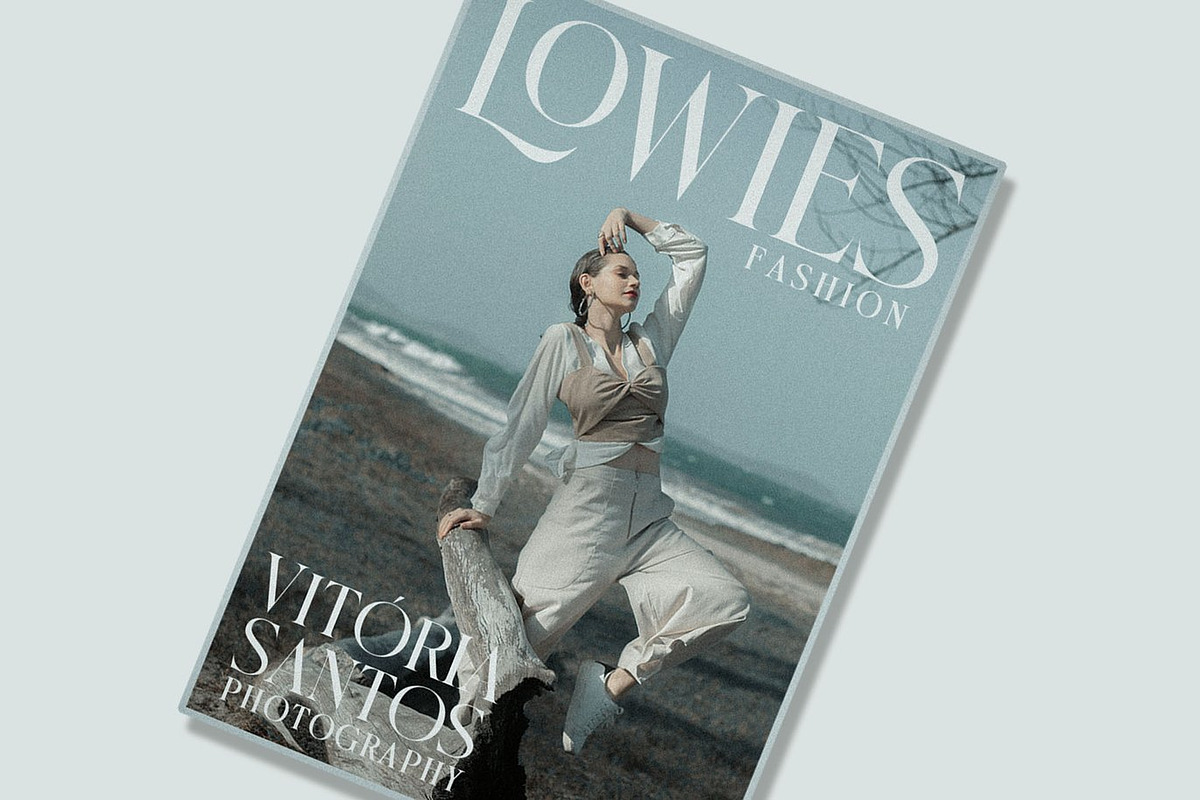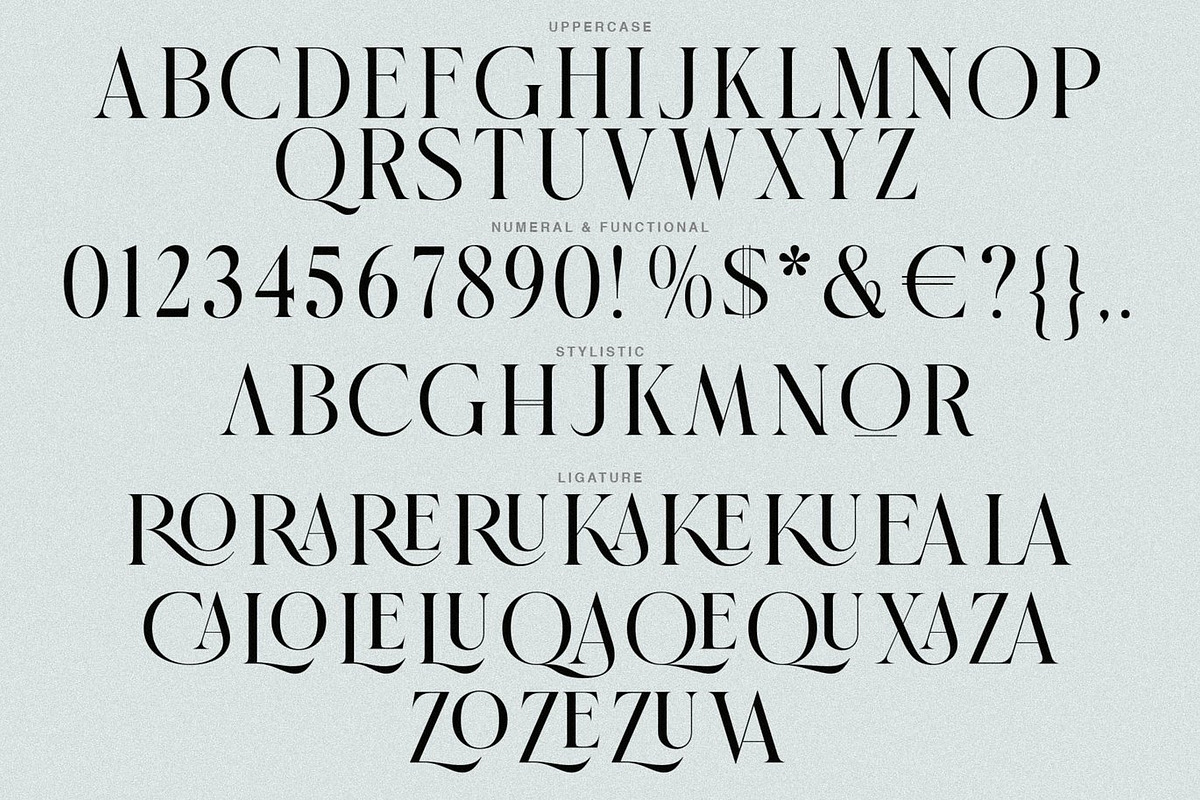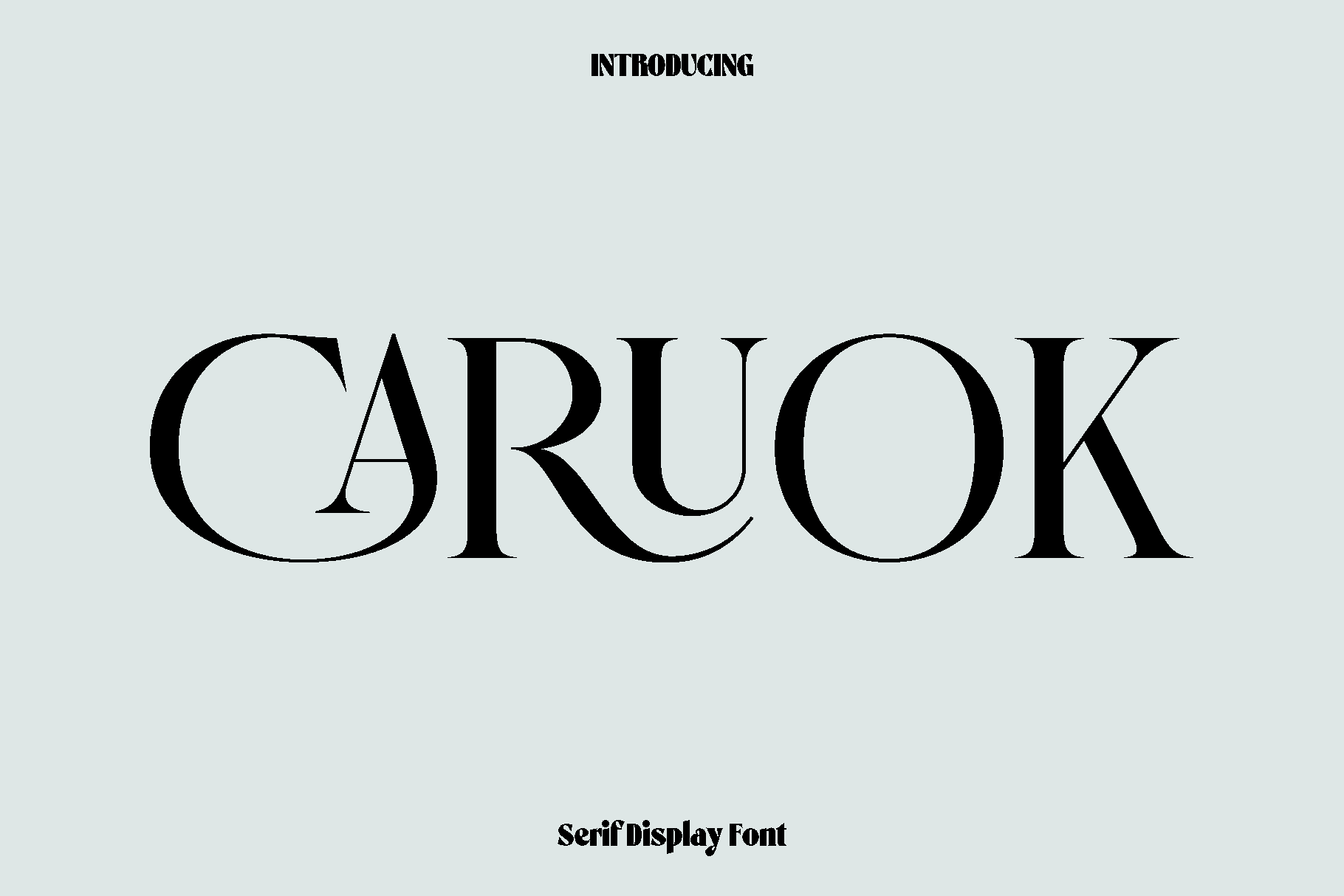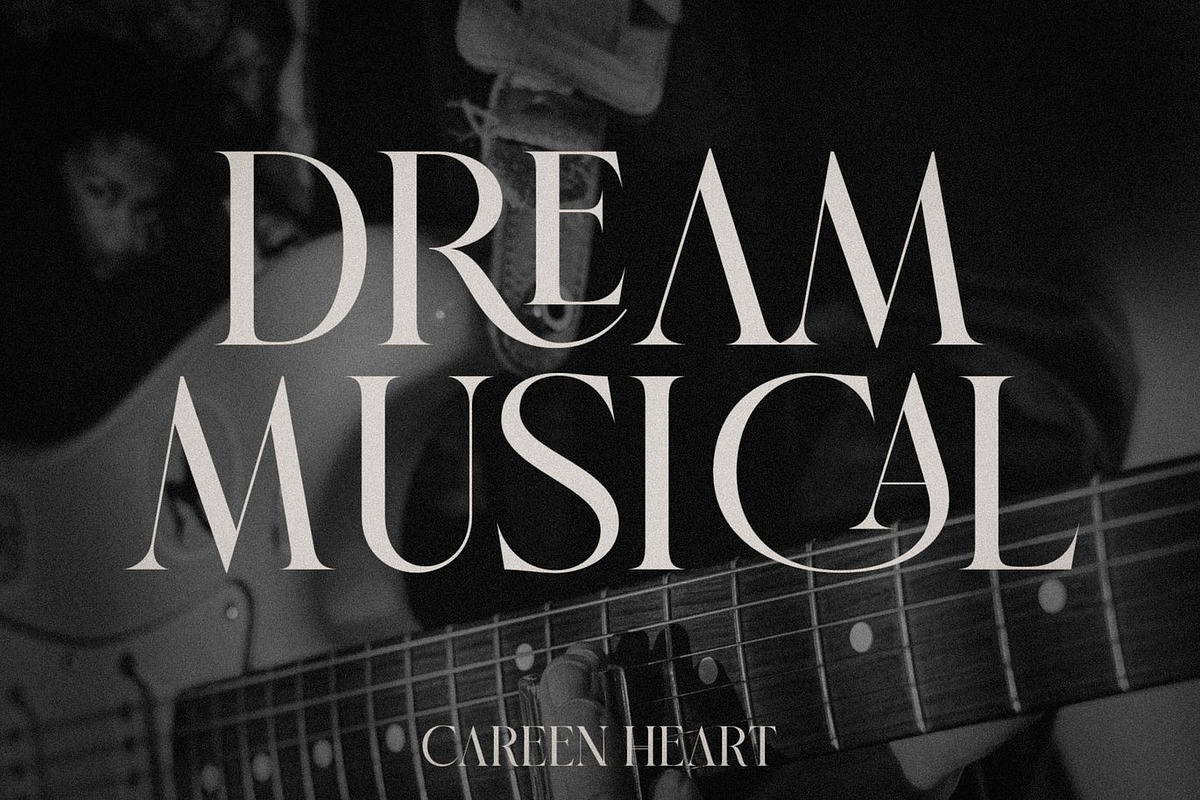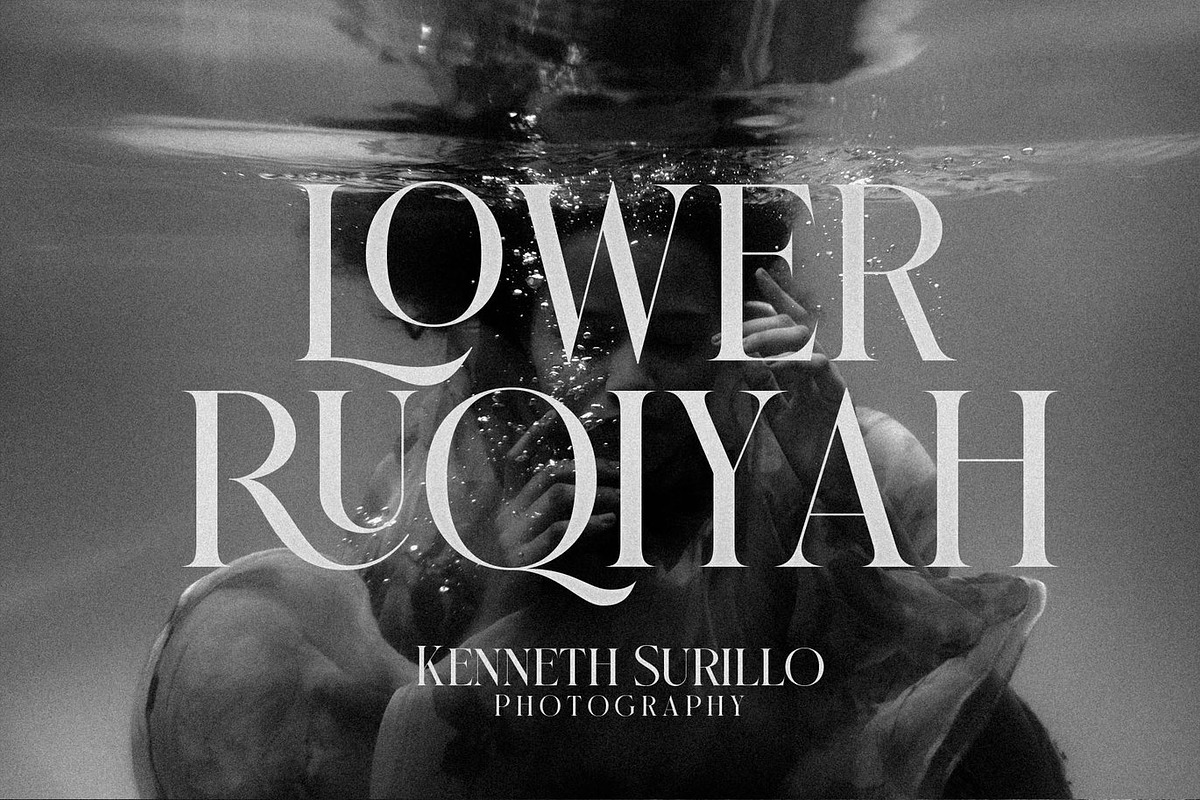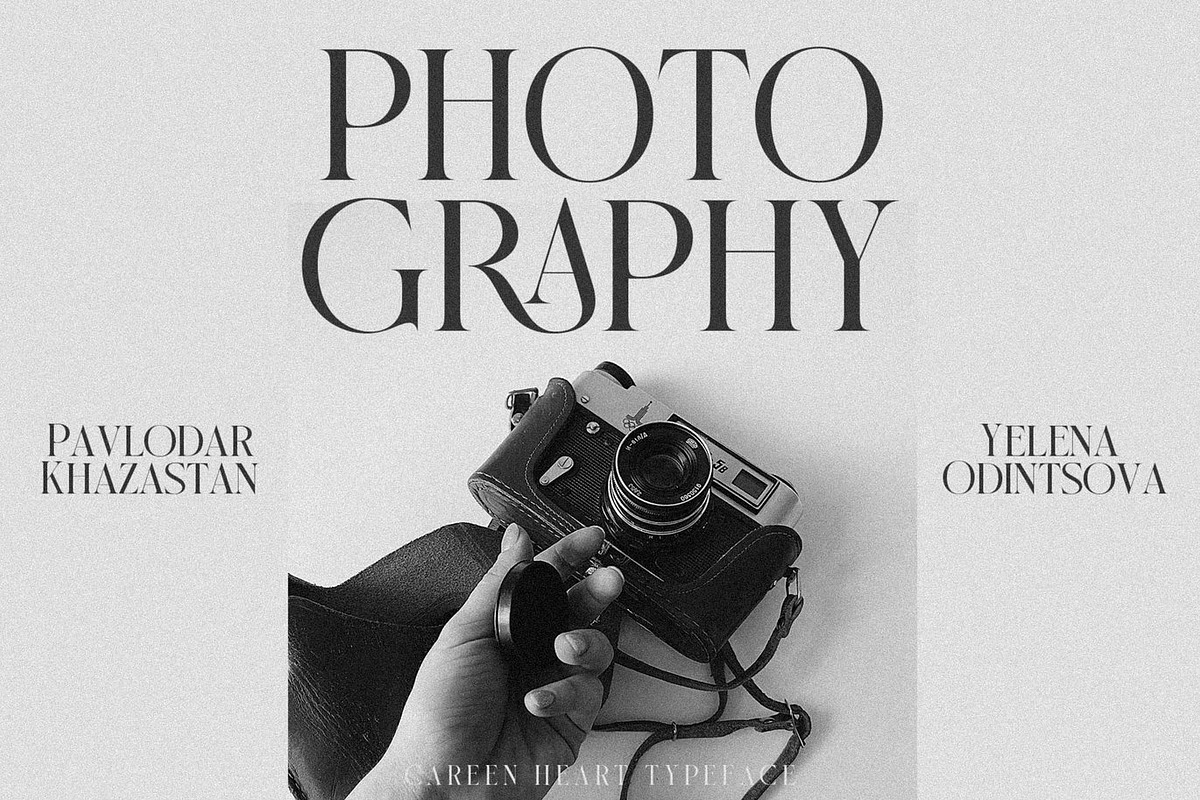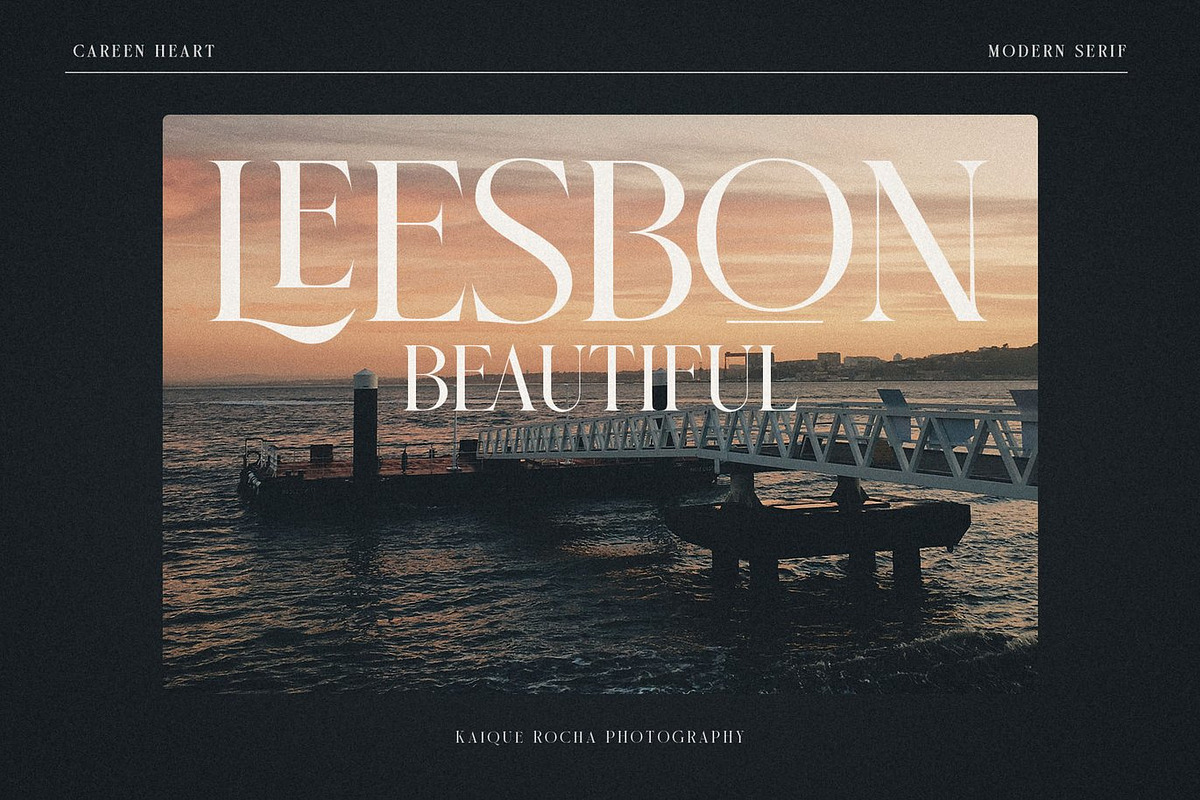
Caruok - Serif Display Font
Caruok is a serif display font designed to express classic beauty, femininity, and refined elegance. Inspired by timeless editorial typography and graceful letterforms, Caruok brings a soft yet confident personality to your designs. Its carefully shaped serifs and stylish alternate characters add a decorative charm that feels luxurious without losing clarity, making every word look polished and expressive.
This font shines in projects that celebrate beauty and sophistication. Caruok is perfect for logos and branding, wedding invitations, stationery, packaging, product labels, social media content, photography watermarks, printed quotes, and event designs. Whether used in large display titles or elegant accents, Caruok creates a warm and graceful visual impression that enhances the overall aesthetic.
Caruok blends traditional serif structure with modern refinement, giving designers a versatile tool for both romantic and professional themes. Its balanced proportions and distinctive alternates help create eye catching compositions while maintaining readability. The result is a typeface that feels charming, stylish, and timeless across print and digital media.
Caruok Font Features:
• Uppercase characters
• Numerals
• Functional punctuation and symbols
• Beautiful alternate stylistic characters
• Multilingual support
Caruok is an excellent choice for designers who want to add elegance, femininity, and classic appeal to their creative work. Let your designs speak with grace and style.